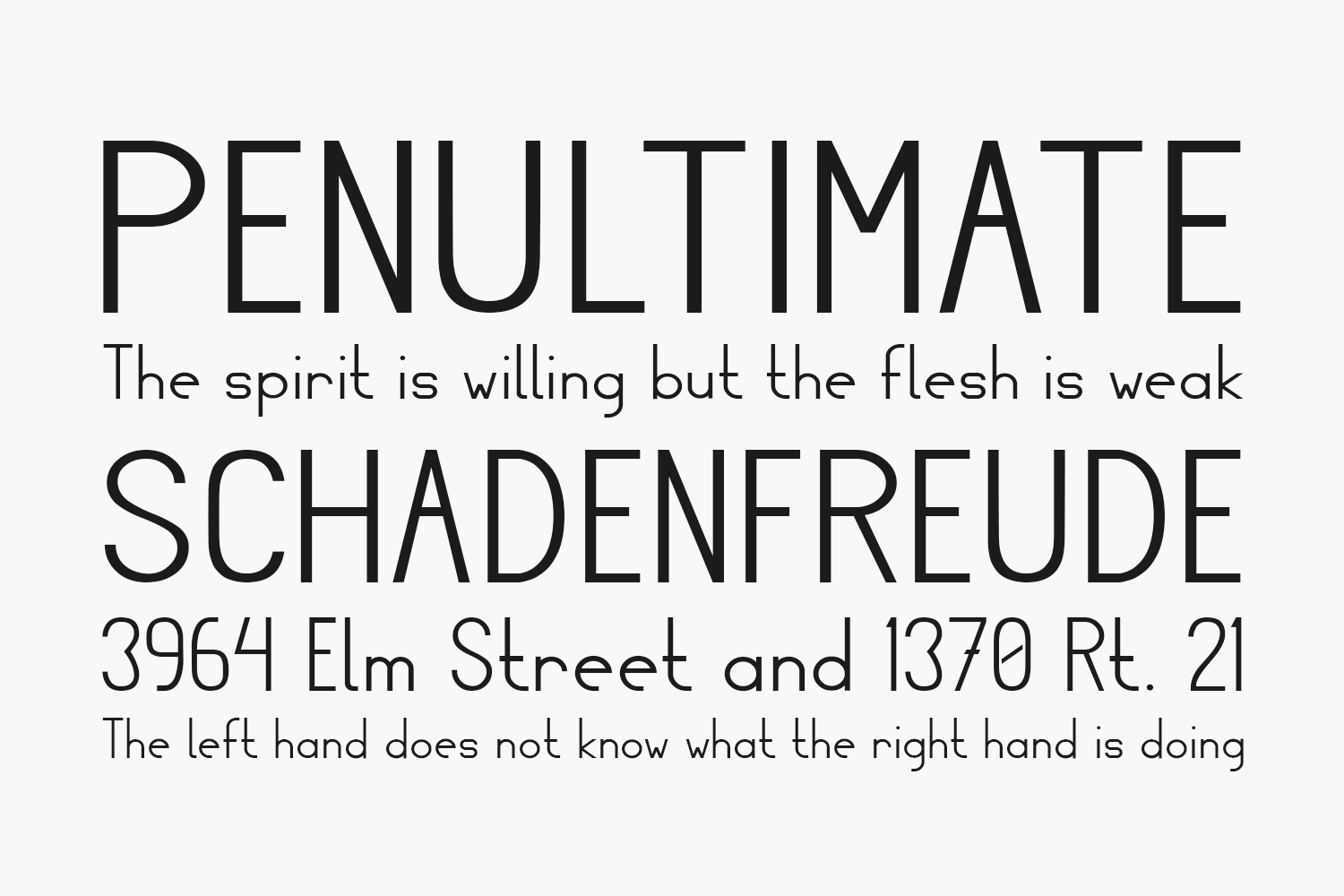
Sullivan Free Font is a very tall geometric sans-serif font. This font is free for personal use. For commercial use, please purchase a license here.
Designed by Thor Christopher Arisland